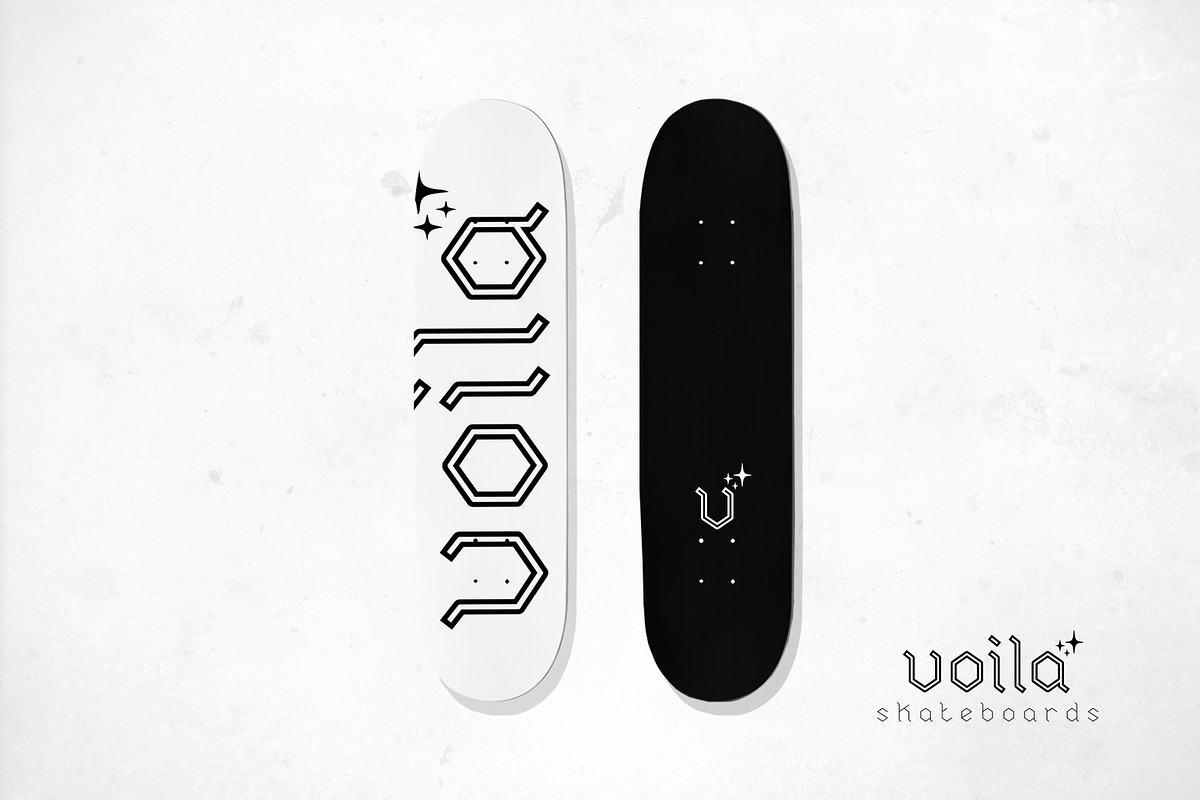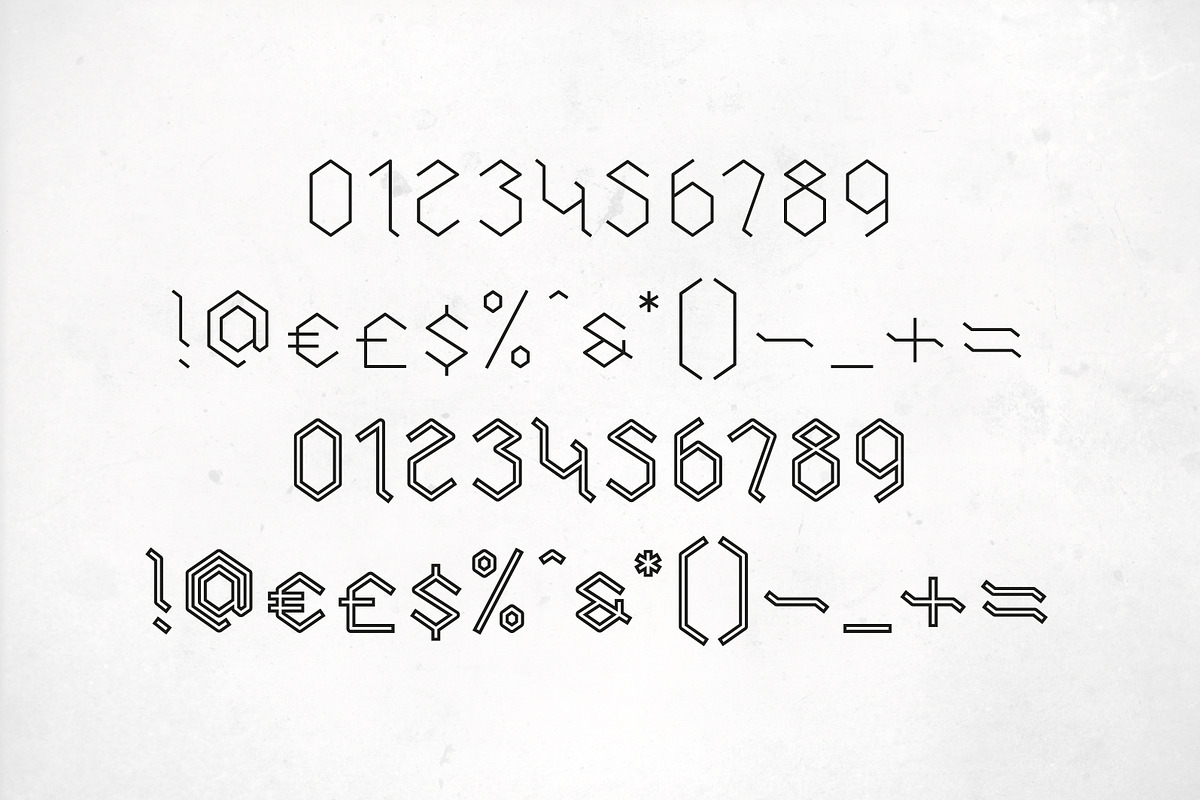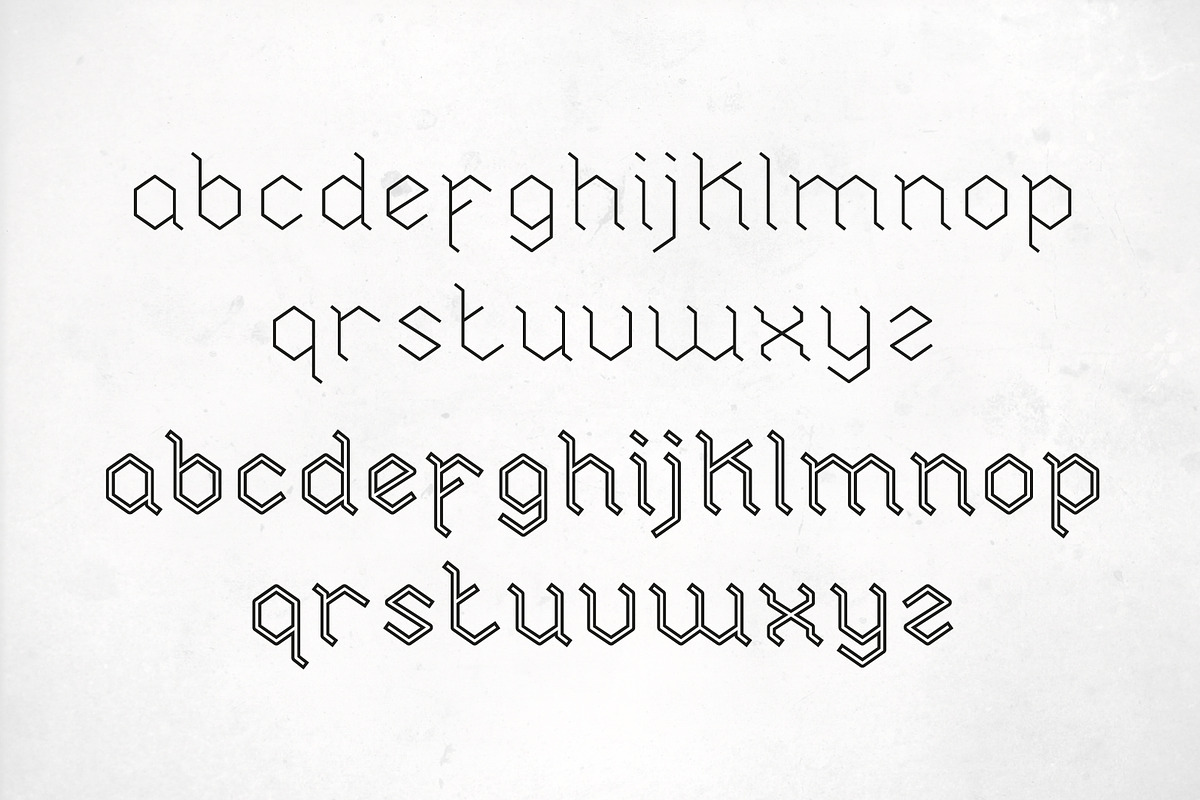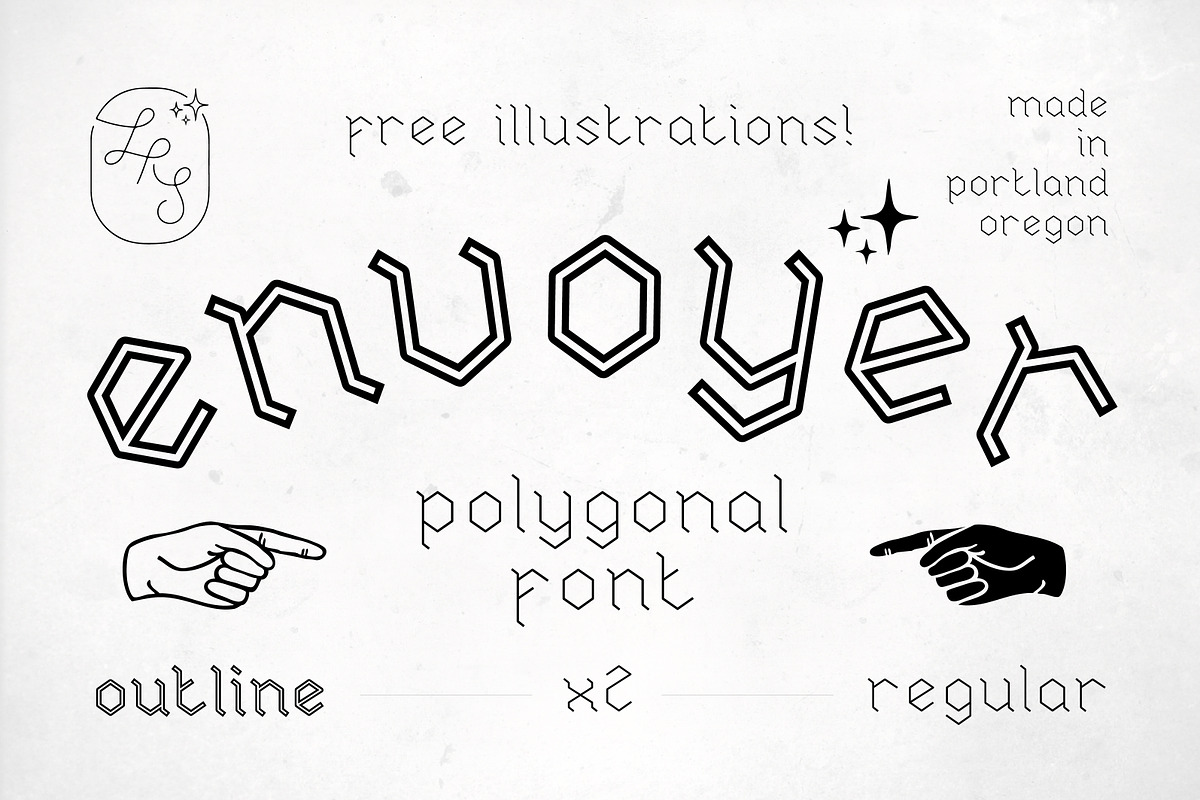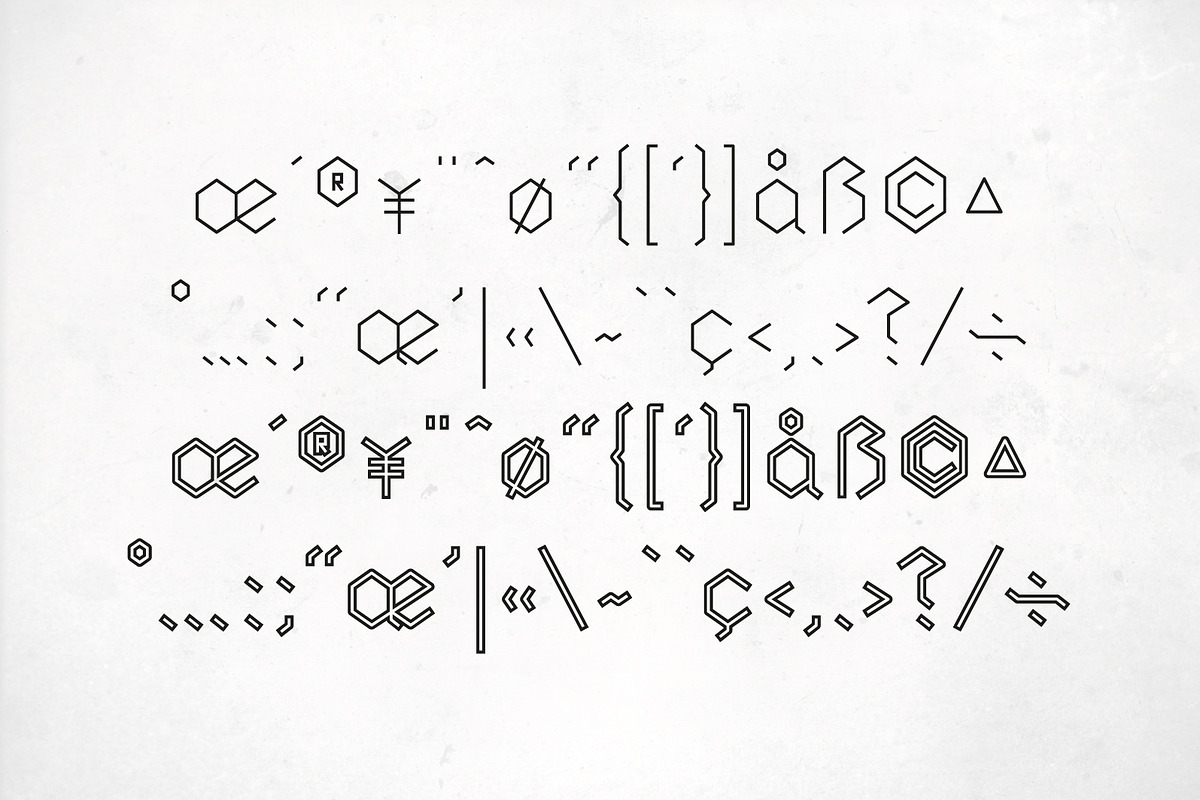
Envoyer Hex Font + Hand Illustrations
Introducing the flagship font 'Envoyer' by LSD Studio.
Hexagons! Geometry! Lines! Envoyer is a uniquely versatile polygonal typeface with subtle serifs that give a nod to Old World letterforms and neo-Gothic Blackletter, even Runic typography. Use it for both modern and traditional design projects.
Envoyer | v. | French : meaning "to send"
The Envoyer package contains two complete lowercase fonts: Outline and Regular, each featuring:
Foreign symbols inc. French & Spanish accents + more
- Envoyer Regular
- Envoyer Outline